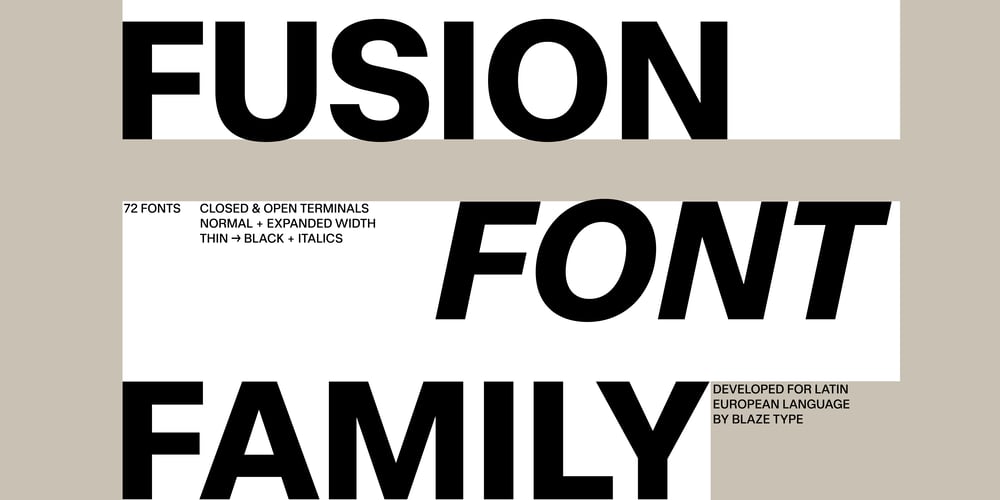
Fusion Collection Variable Font Family was designed by Matthieu Salvaggio, Tim Vanhille and published by Blaze Type. Fusion Collection Variable contains 1 styles and family package options. Fusion, a typeface that draws inspiration from the iconic neo-grotesque masterpieces defining Swiss design excellence from the late 1950s to the 2000s. Embracing the spirit of two influential fonts, Helvetica by Max Miedinger and Univers by Adrien Frutiger, Fusion reimagines their timeless charm while striking a harmonious balance between the two renowned styles.Crafted with meticulous attention to detail, Fusion exhibits clear and powerful shapes that radiate precision and professionalism. Its weight effortlessly adjusts, accentuating contrast and counterforms for unrivaled legibility, even at smaller sizes, making it an optimal choice for body text in any context.